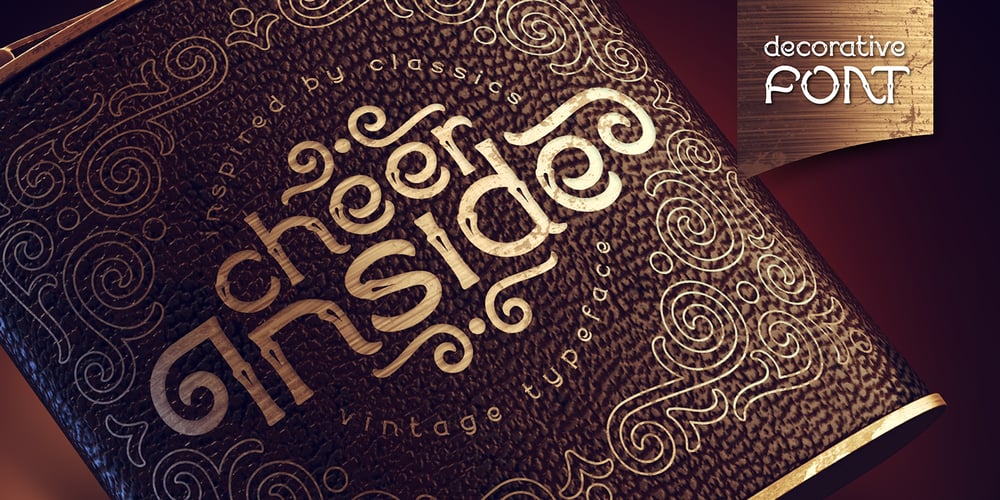
Cheer inside Font Family was designed by Gleb Guralnyk and published by Gleb Guralnyk. Cheer inside contains 1 styles and family package options. Introducing a vintage typeface Cheer inside. This font has a classic style with additional decorative ghlyphs. Using OpenType stylistic alternates you can replace the first uppercase and the last lowercase letters. Also an additional swashes and few ligatures are available. Cheer inside has a west european support, check out the screenshot with all characters.Thank you and have a nice day!